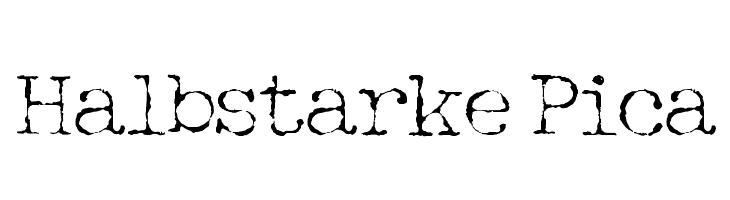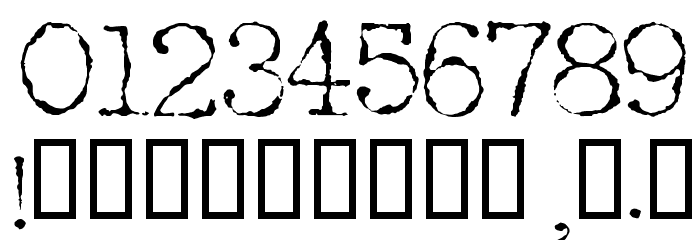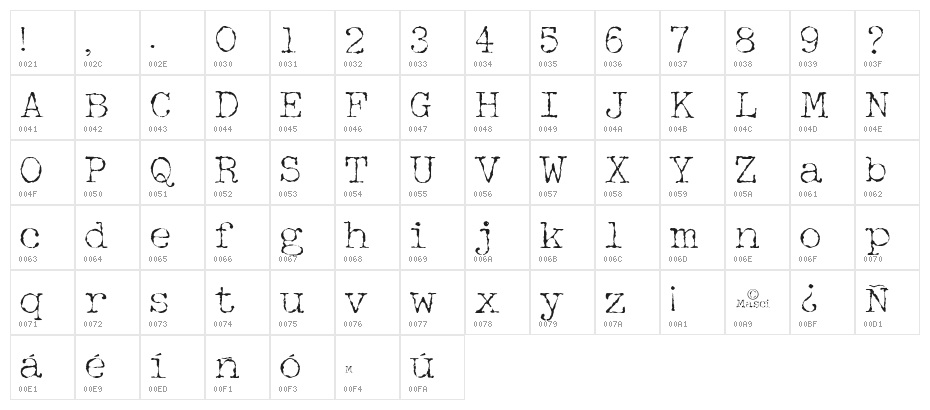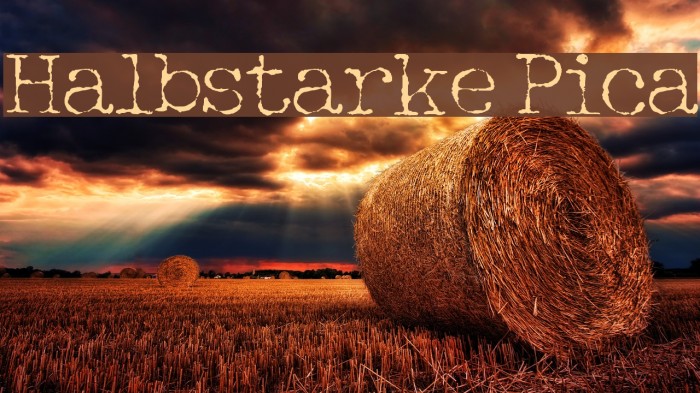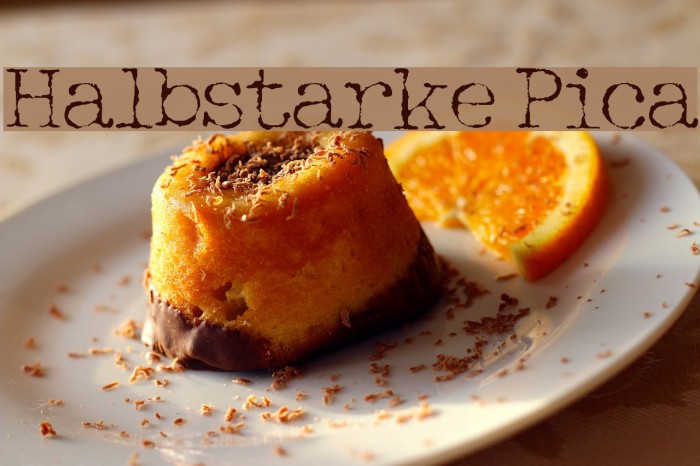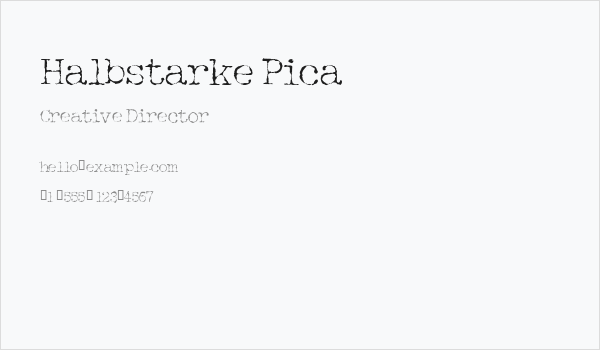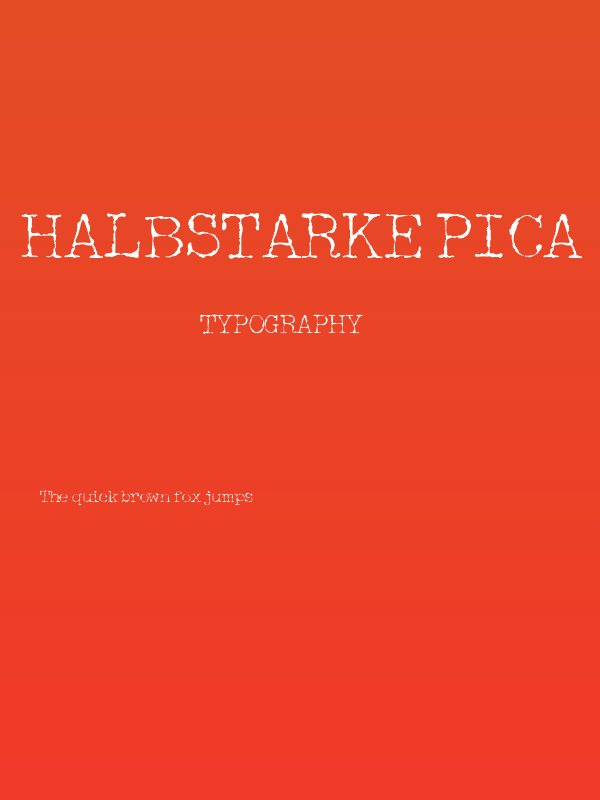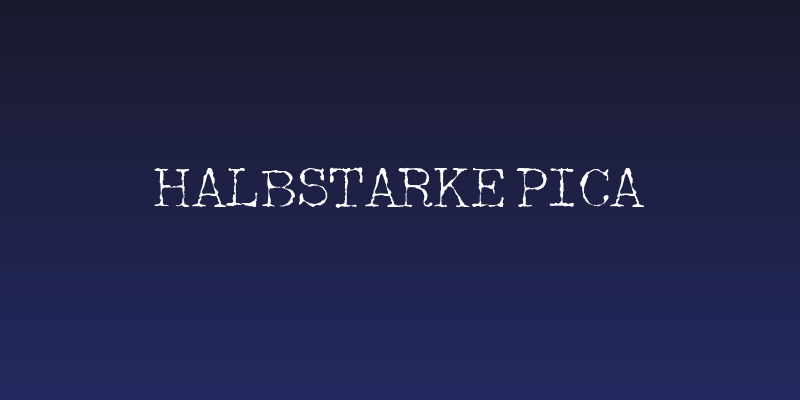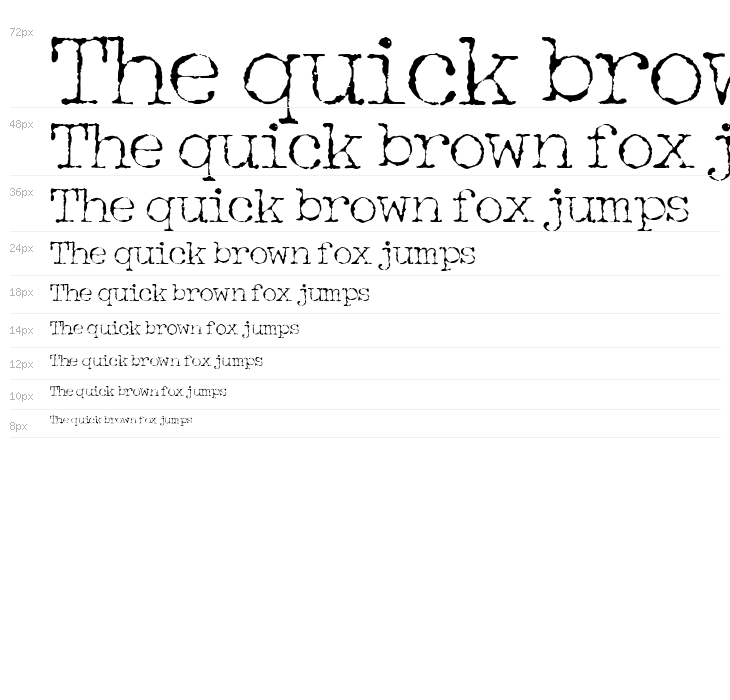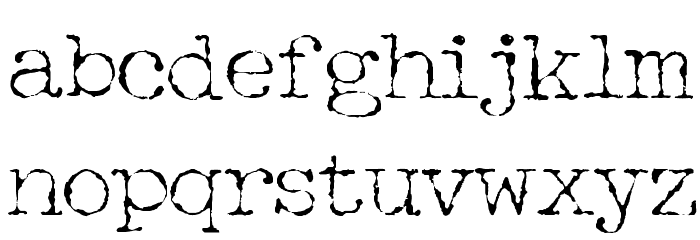
Halbstarke Pica Font
Halbstarke Pica Description
This font features a distressed, textured appearance that gives it a vintage and worn-out feel. The characters are serifed, with uneven edges and a slightly rough texture, suggesting a hand-crafted or typewriter-like style. The uppercase and lowercase letters maintain a consistent design, with the serifs adding a touch of elegance despite the rugged texture. Numbers and special characters follow the same design principles, ensuring uniformity across all glyphs. The overall look is reminiscent of old printing techniques, making it suitable for projects that require a retro or nostalgic aesthetic.
| Use Case | Headlines, Logos, Decorative text |
| Proposed Projects | Ideal for vintage-themed posters, retro branding, book covers, and any design that seeks to evoke a sense of nostalgia or historical context. |